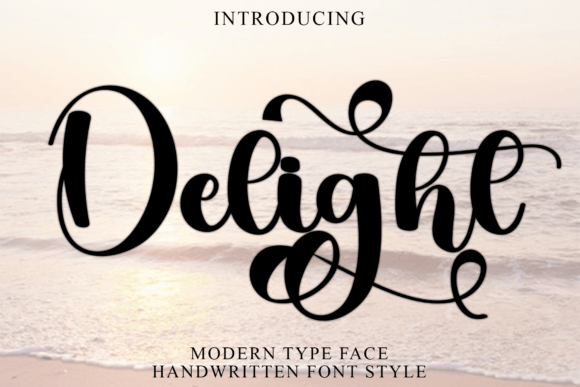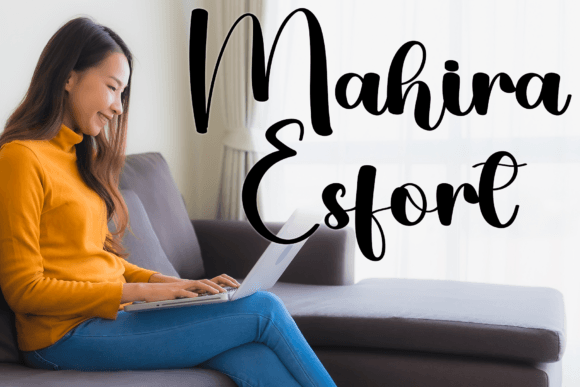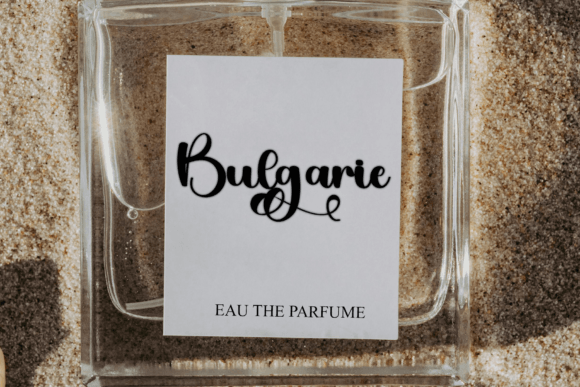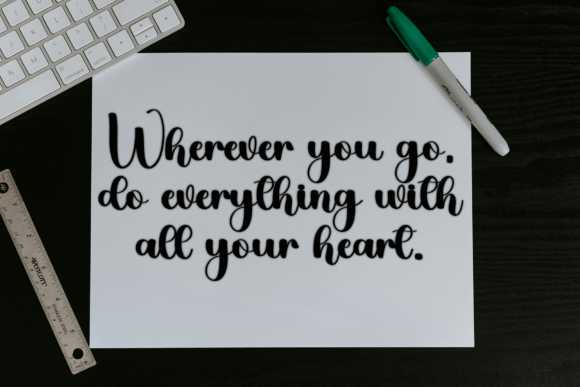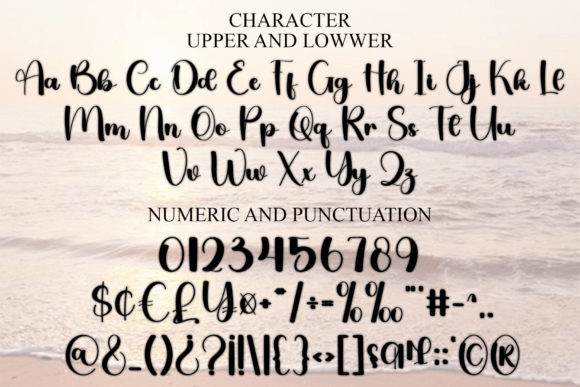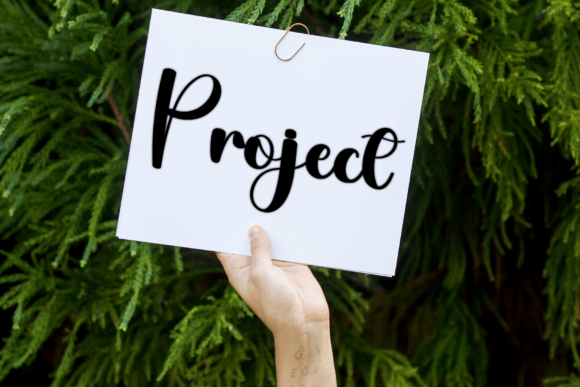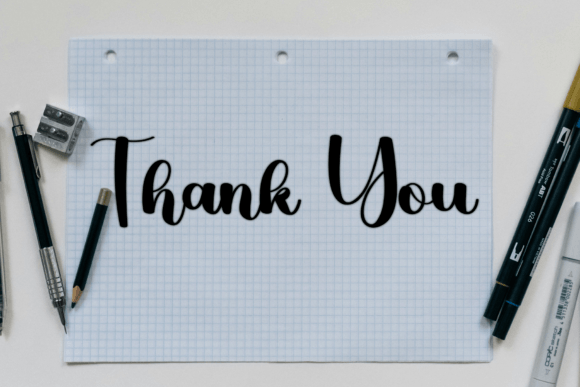
The Perfect Script for Your Next Design Project
Have you ever sat down with a blank sheet of paper and a pen, feeling the urge to create something beautiful? Maybe it’s a wedding invitation, a heartfelt thank you note, or a motivational quote that needs to be shared. Whatever it is, you know that the right font can make all the difference in capturing the essence of your message.
Enter Delight Font, a stunning script font that adds a touch of elegance to any design project. Whether you’re a professional designer or a DIY enthusiast, Delight Font is the perfect choice for creating stunning visuals that leave a lasting impression. With its versatility and sophistication, it’s no wonder that Delight Font has become a favorite among designers looking to add a handwritten touch to their work.
Delight Font Key Features
- Font Family: Delight Font offers a unique, elegant design with 6 different font styles: Delight, Delight Italic, Delight Bold, Delight Bold Italic, Delight Light, and Delight Light Italic.
- Character Set: The font includes a wide range of characters, including Latin, Greek, and Cyrillic scripts, covering most languages.
- Unique Characteristics: Delight Font features a unique blend of modern and classic elements, with subtle flourishes and ornaments, making it ideal for creative and elegant designs.
Delight Font Review
Overall, I think Delight Font has some great qualities, but it’s not without its flaws. Let’s dive in!
- Delight Font has a unique, whimsical feel to it that’s perfect for projects that need a touch of personality.
- The font is highly legible, even at smaller sizes, making it suitable for body text.
- The font family includes a range of weights, from light to bold, giving designers plenty of options for styling their content.
- Delight Font can feel a bit too playful for more formal or corporate projects.
- The font may not be the best choice for projects that require a high level of professionalism or sophistication.
- Some users have reported issues with font rendering on certain devices or platforms.
Overall, I think Delight Font is a solid choice for designers looking for a fun, playful font. While it may not be the best fit for every project, it’s definitely worth considering for projects that need a bit of whimsy and personality.
Delight Font is perfect for creating eye-catching social media posts, especially for food, fashion, or lifestyle brands.
Delight Font is ideal for creating custom typography for branding, logos, or packaging design.
Delight Font is perfect for creating engaging presentations, reports, or documents for businesses and individuals.
Delight Font is suitable for various design projects, including:
- Fashion and lifestyle marketing
- Custom typography for logos and packaging